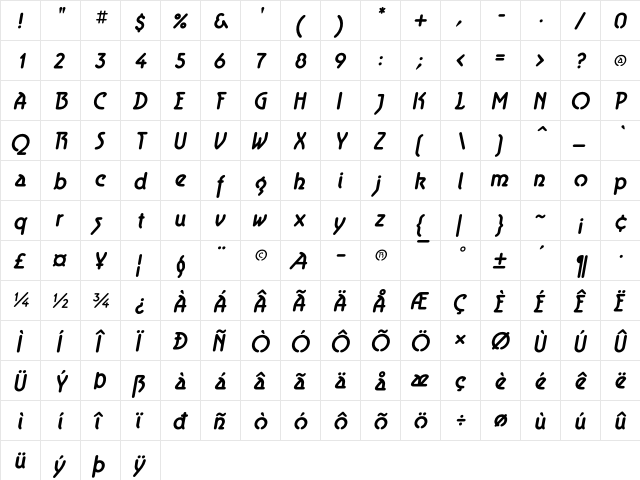
Aerolite Bold Italic Regular Font Preview
| Foundry | Jan Paul, ƎIGMA FONTS |
| Designer | Jan Paul |
Design Context for Aerolite Bold Italic Typeface
Aerolite Bold Italic is a composed and adaptable typeface that performs quietly and consistently across a wide range of design contexts. The slanted form adds forward momentum and visual energy. The heavy weight commands attention and anchors typographic hierarchies.
Pro Tip: Try Aerolite Bold Italic for annotation and caption copy alongside an upright companion — the contrast in angle creates a dynamic but ordered typographic system.